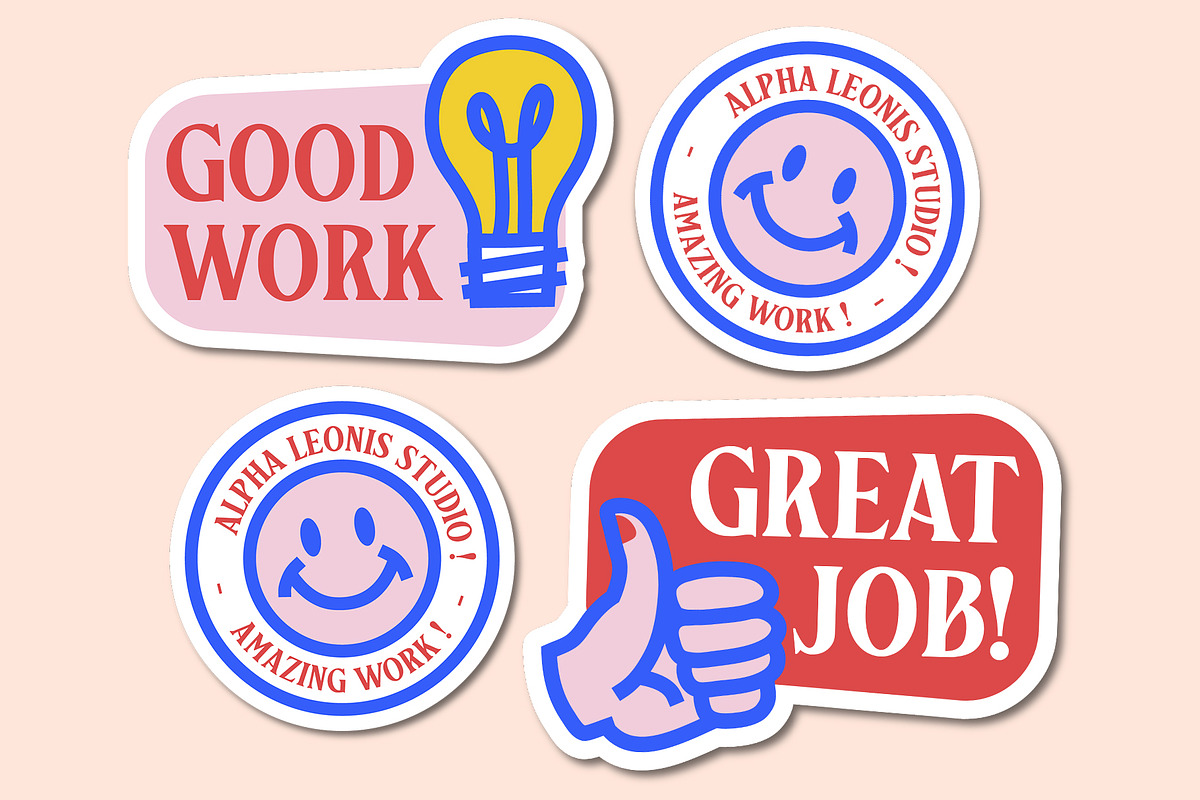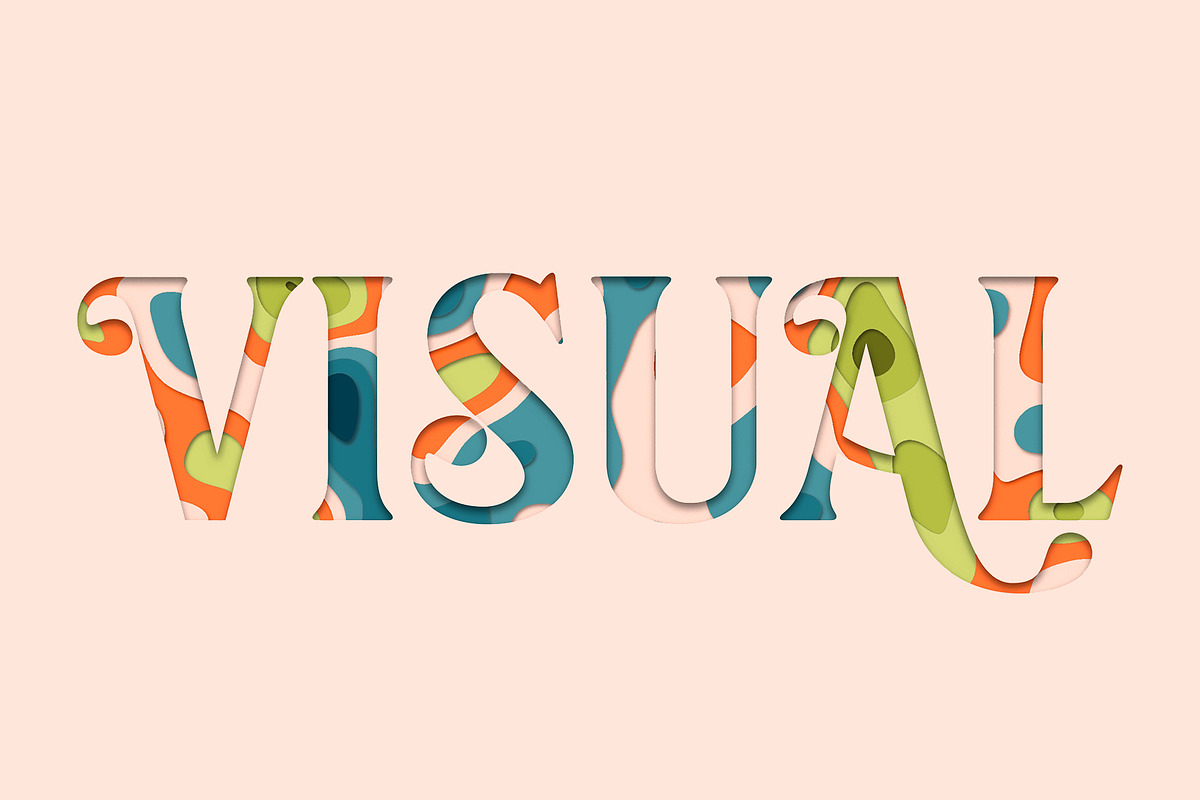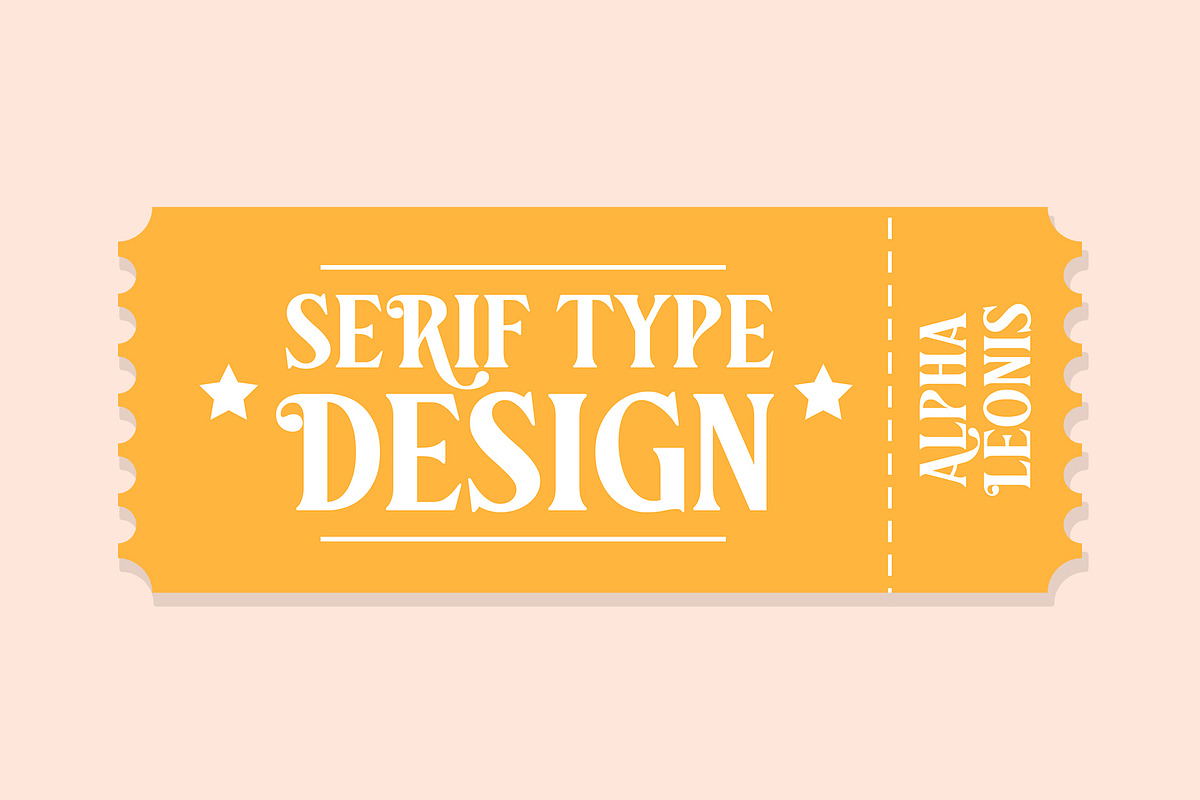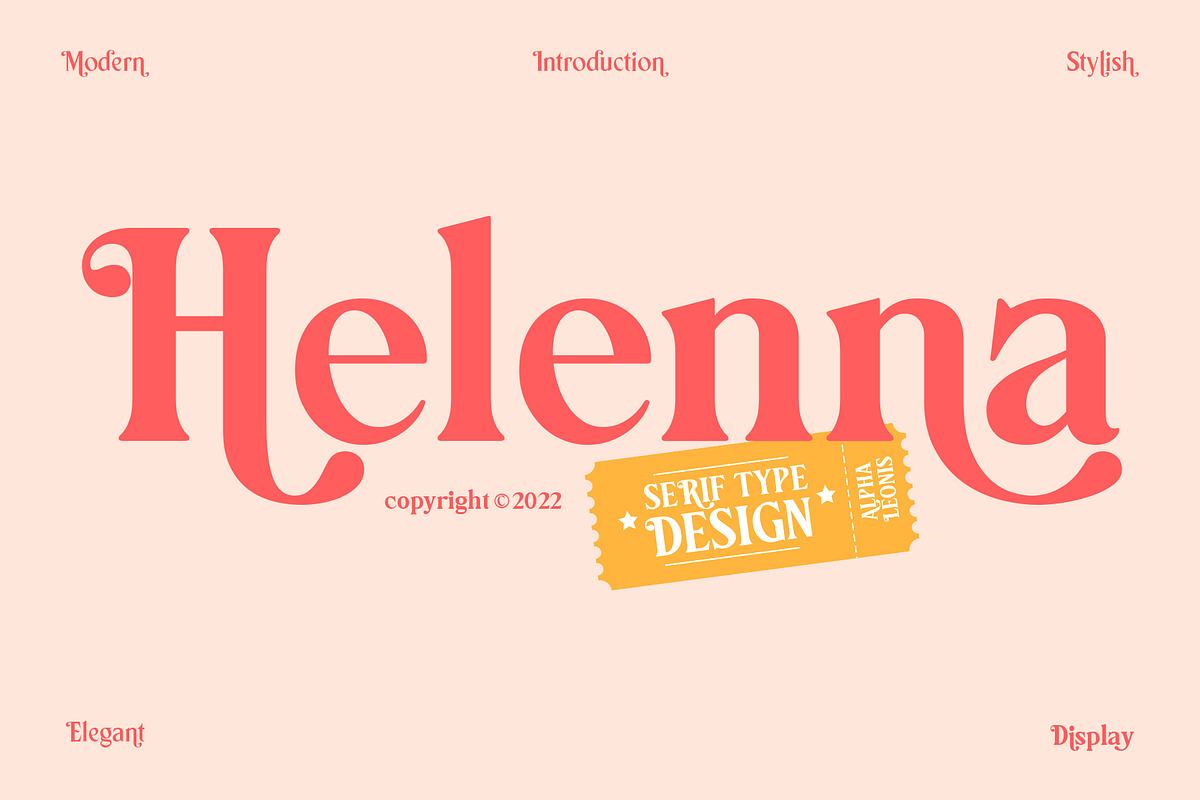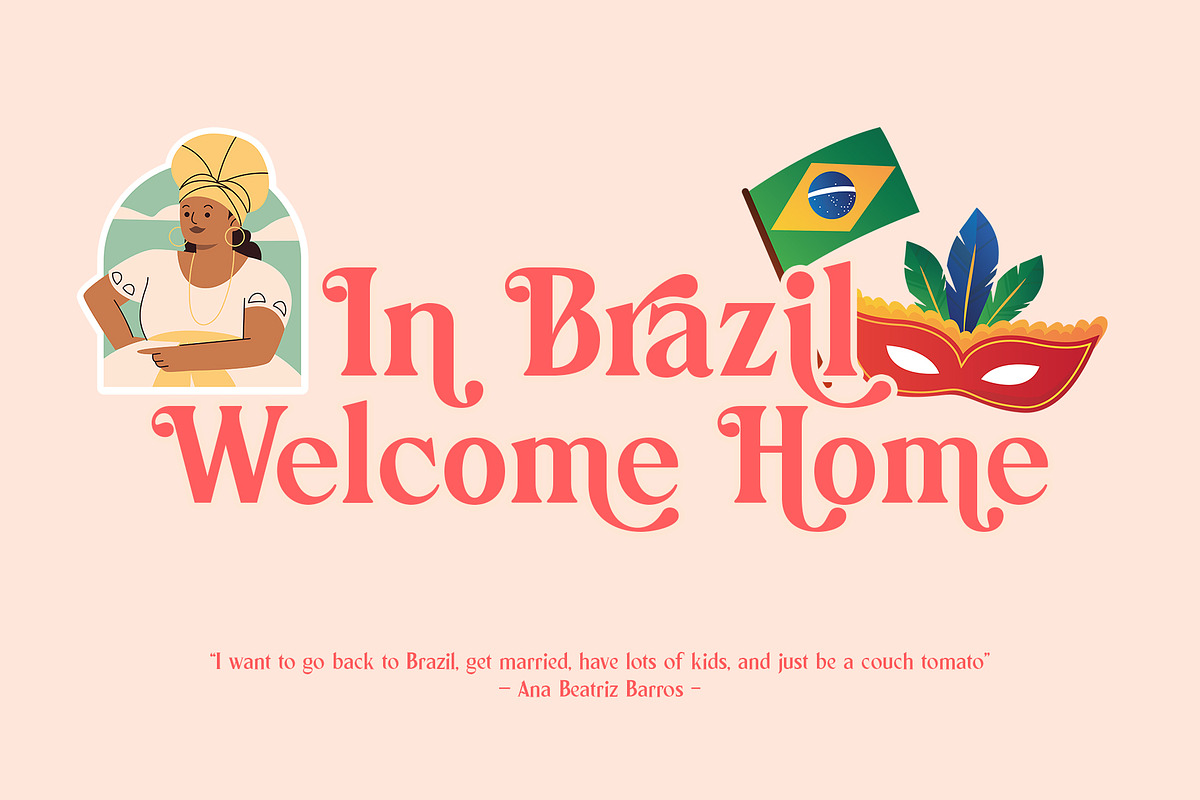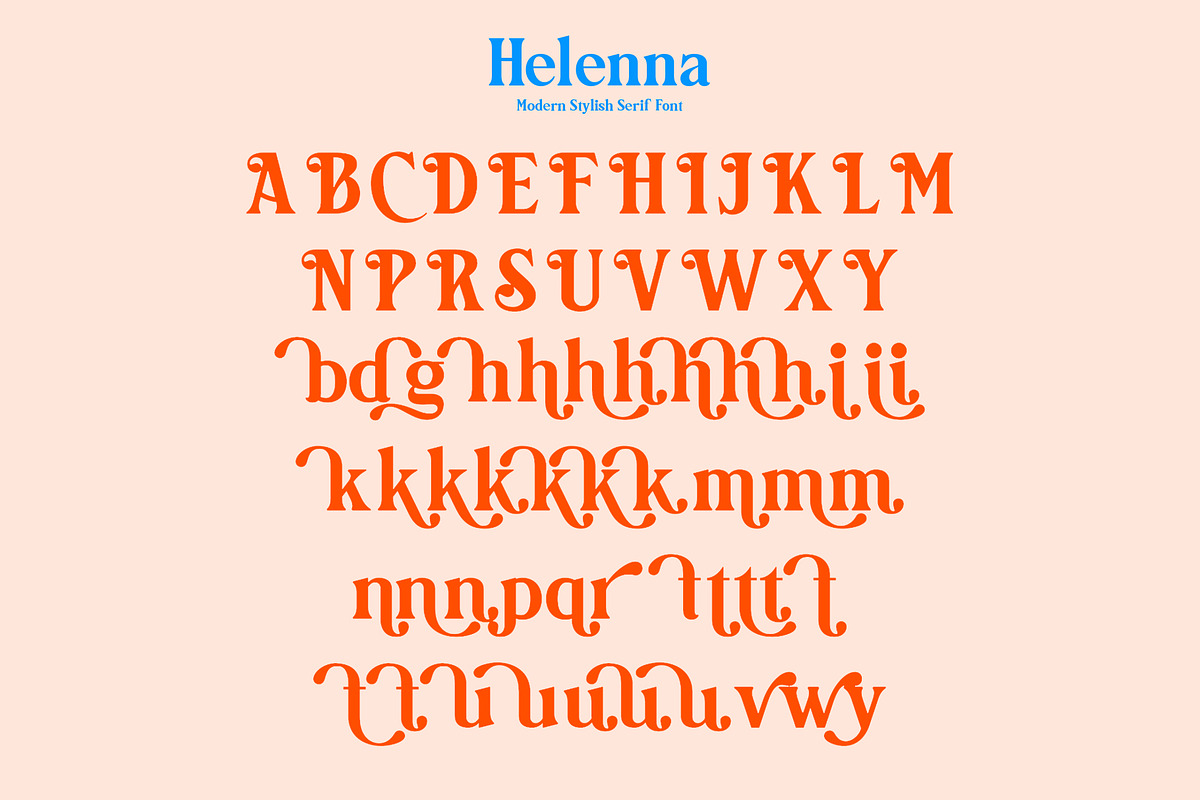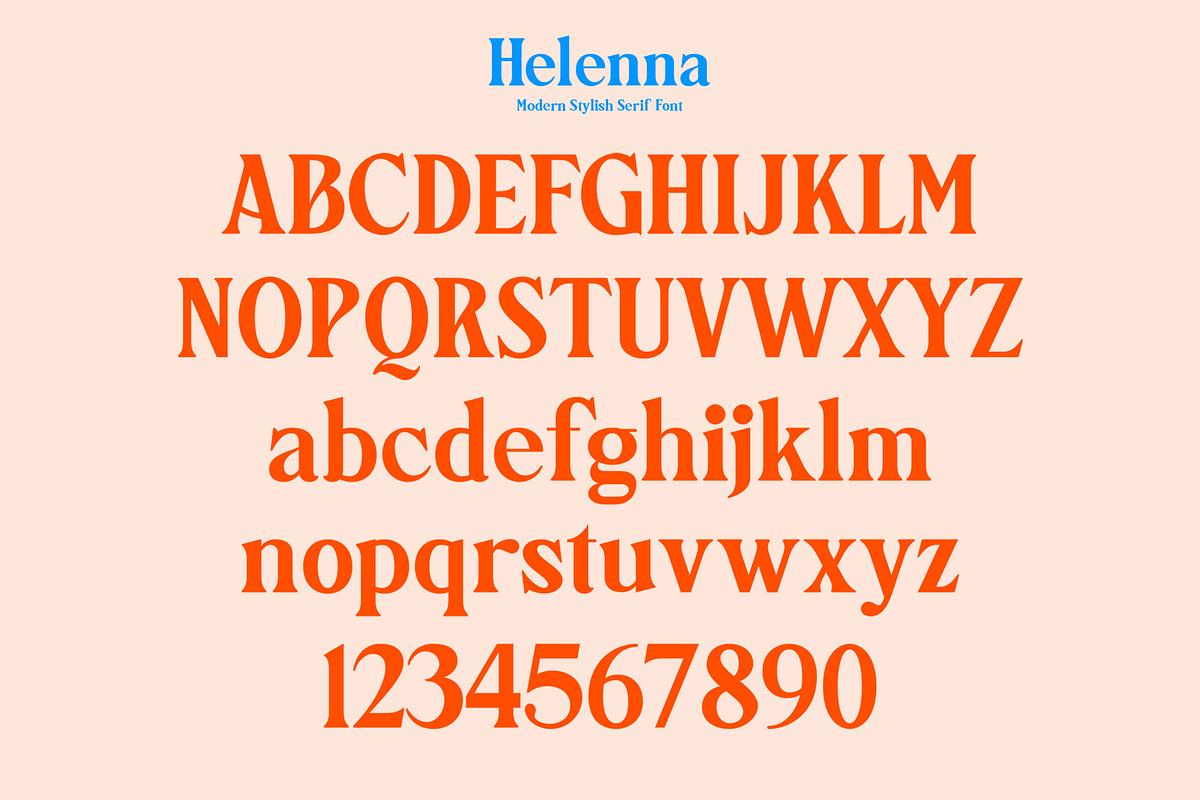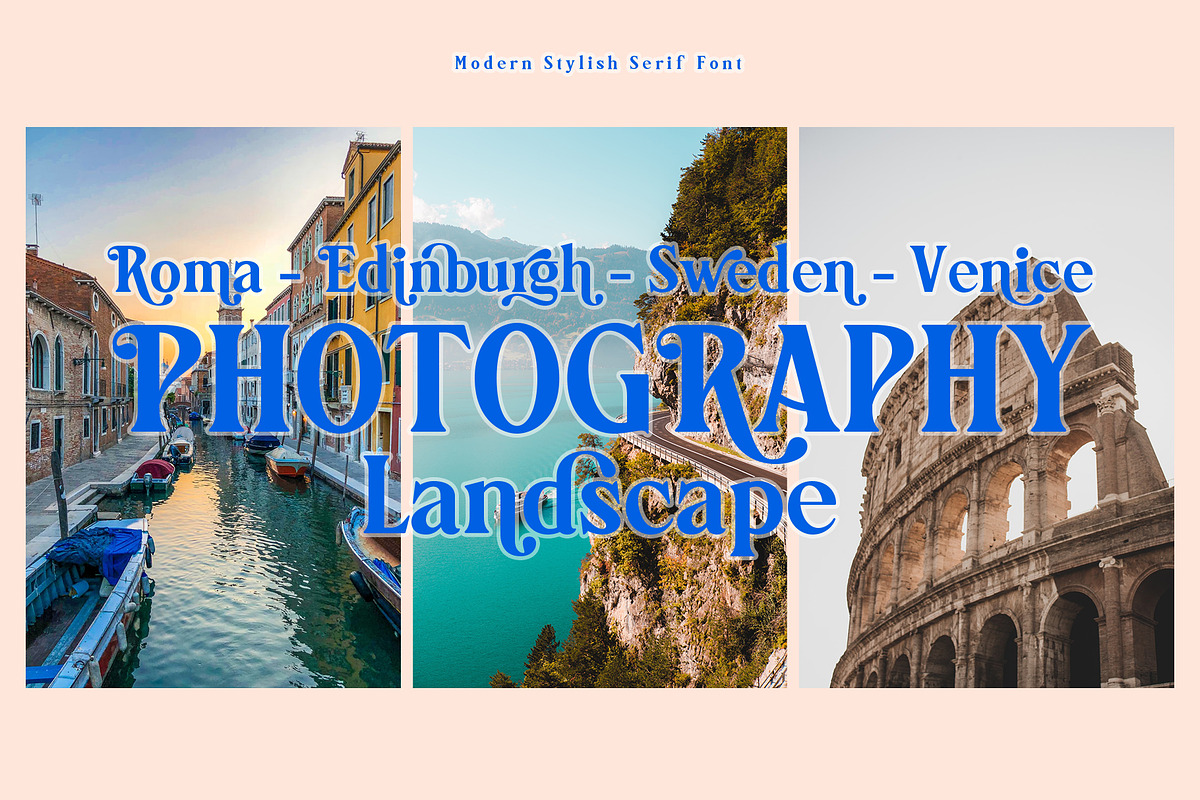
Helenna Serif
Helenna - Modern Serif Font
Introducing the new Helenna - Modern Serif Font a modern serif font !!! For those of you who are needing a touch of elegant, simple, natural and modernity for your designs, this font was created for you!
Helenna - Modern Serif Font was built with OpenType features and includes ligatures, alternates, begining and ending swashes, numbers, punctuation, and it also supports your work design. The font has Great for head title, printed quotes, greeting card, invitation, wedding, events and etc